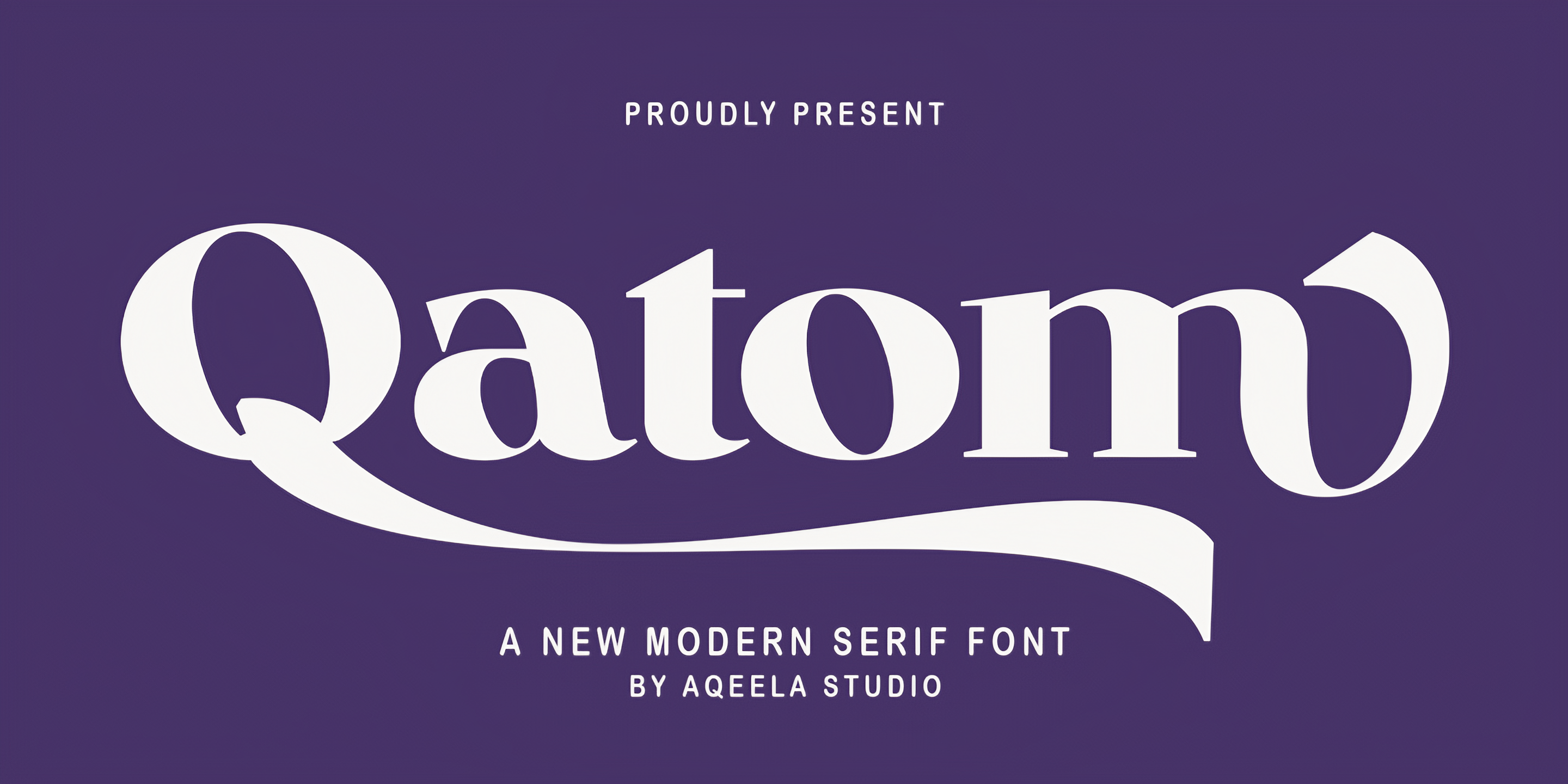
Qatom Font excels in diverse design applications including quantum computing company branding, advanced physics research presentations, atomic energy communications, scientific laboratory materials, molecular biology publications, nanotechnology startups, particle physics conferences, and cutting-edge research institutions that require atomic precision and quantum sophistication.
What makes Qatom Font truly exciting is its revolutionary embodiment of quantum mechanics and atomic structure that captures the fundamental building blocks of reality through typography that reflects the precise, interconnected nature of atomic particles and the quantum realm where ordinary physics rules no longer apply. This groundbreaking typeface features clean, precisely constructed letterforms with subtle quantum-inspired elements that evoke images of atomic orbital patterns, particle accelerators, and the elegant mathematical equations that describe the behavior of matter at its most fundamental level. The font's scientific character reflects the precision and innovation required in quantum research, making it perfect for brands that want to communicate scientific excellence, technological advancement, and the cutting-edge research that pushes the boundaries of human understanding. Its atomic appearance creates immediate associations with scientific innovation and quantum technology.
The Qatom Font family includes multiple weights and quantum variations designed to enhance scientific communication. The collection features Thin, Light, Regular, Medium, SemiBold, and Bold weights, each maintaining the font's characteristic atomic appeal while offering different levels of scientific presence. The family also includes alternate characters with varying quantum effects, molecular elements that simulate atomic structures, and stylistic sets that create systematic text arrangements reflecting the order of scientific research. Additional features include contextual alternates and quantum ligatures that enhance the authentic, scientific appearance.
Scientific and technology professionals consistently choose Qatom Font Free Download for projects requiring authentic quantum character and atomic credibility. The font's scientific nature makes it particularly effective for research institutions, technology companies, and educational organizations targeting audiences who appreciate cutting-edge science and quantum technology. Its excellent readability across various applications ensures effective communication while maintaining the distinctive atomic character that conveys scientific authority and quantum innovation.
The advanced OpenType capabilities of Qatom Font include contextual alternates, stylistic sets, and comprehensive character support that accommodates scientific terminology and quantum expressions while preserving the font's authentic atomic character. The technical precision ensures consistent scientific appearance across different research applications and technology platforms.
For creative professionals seeking a typeface that embodies genuine quantum heritage and atomic sophistication, Qatom Font offers unparalleled scientific appeal and technological elegance. Its ability to convey quantum authority while maintaining functional communication makes it invaluable for research institutions, technology companies, and scientific organizations. The font's distinctive atomic character ensures memorable scientific impact across all applications, creating powerful visual identity systems that celebrate the fundamental nature of reality and the groundbreaking research that continues to unlock the secrets of quantum mechanics and atomic physics.